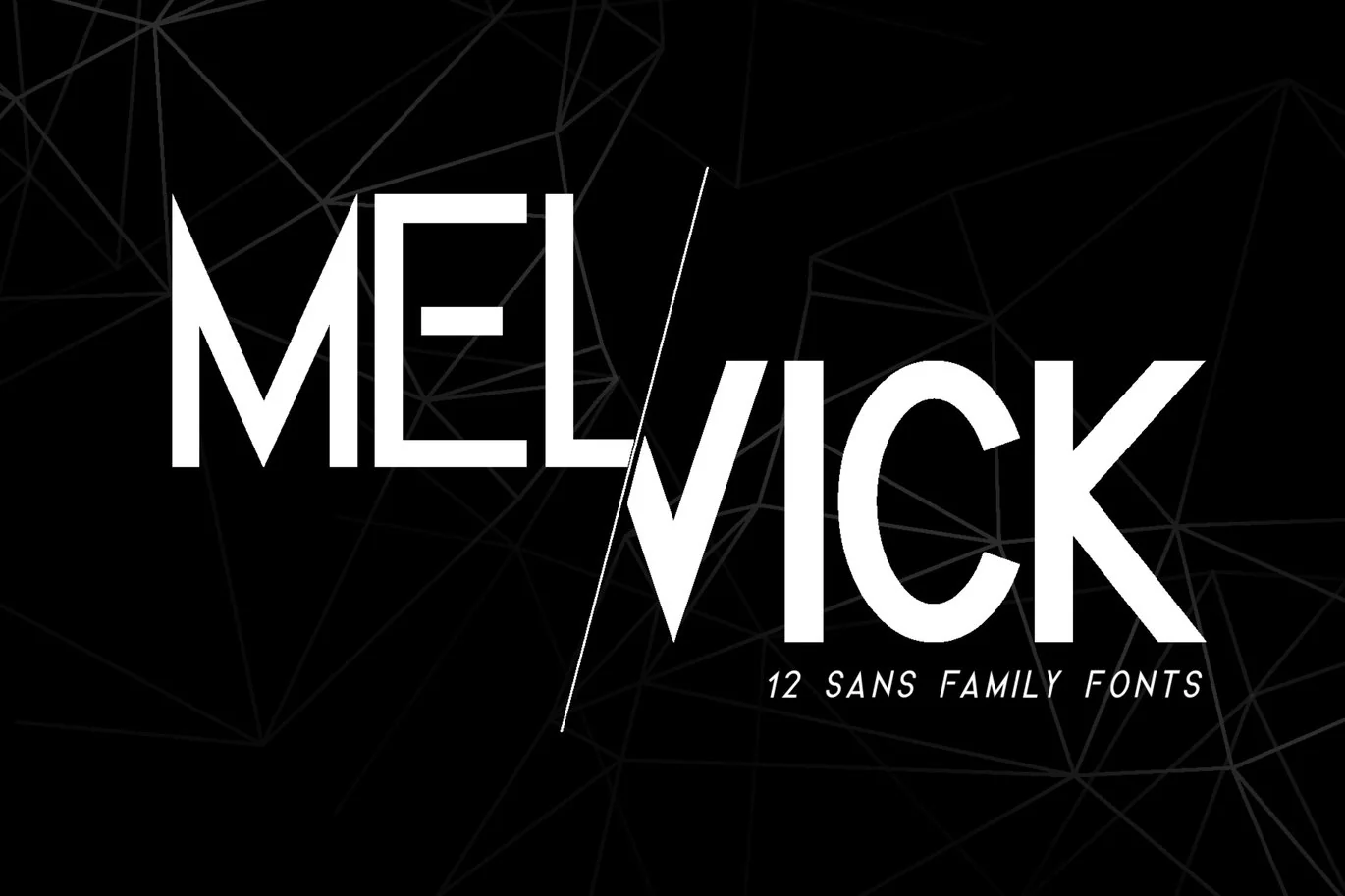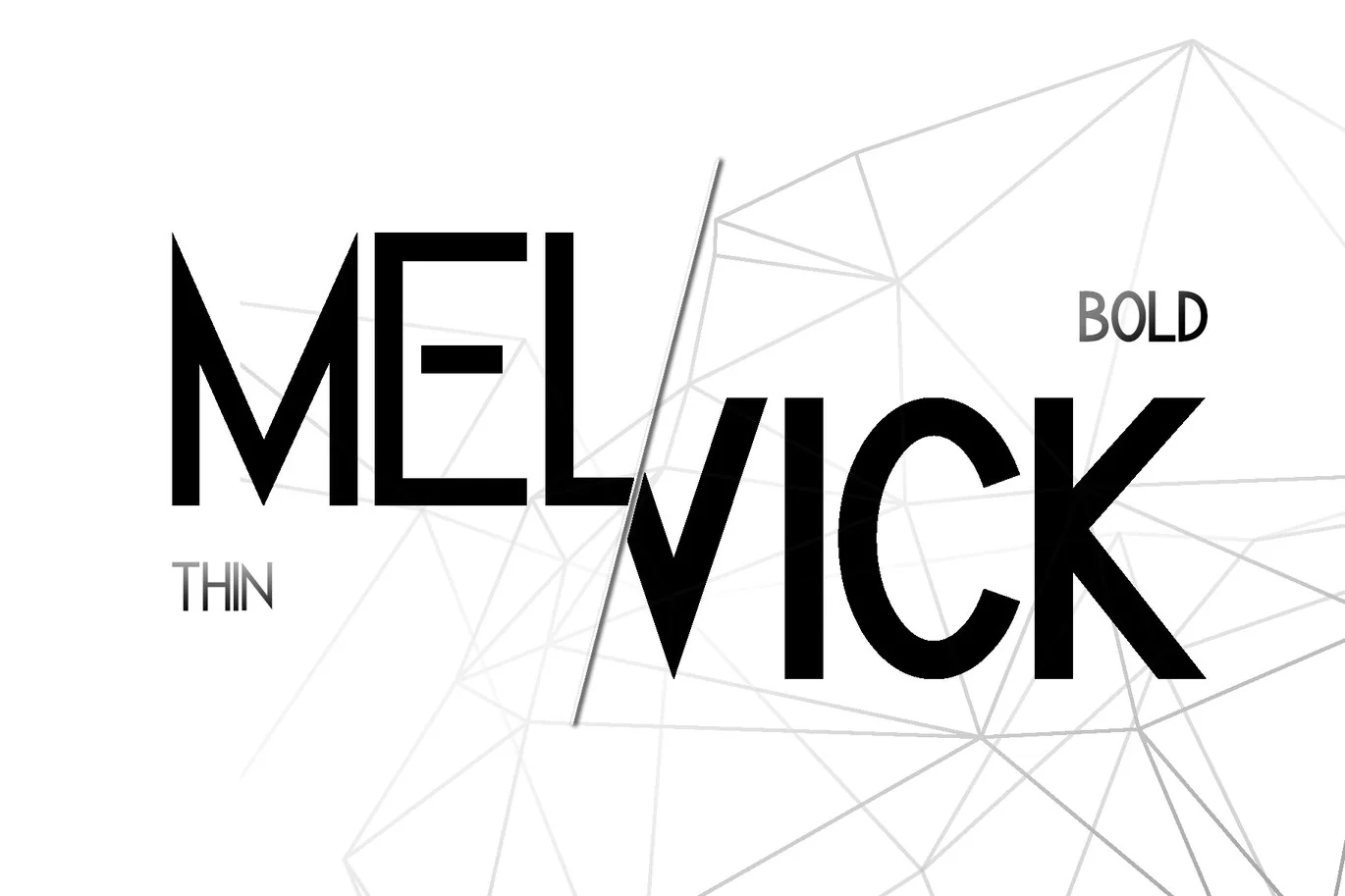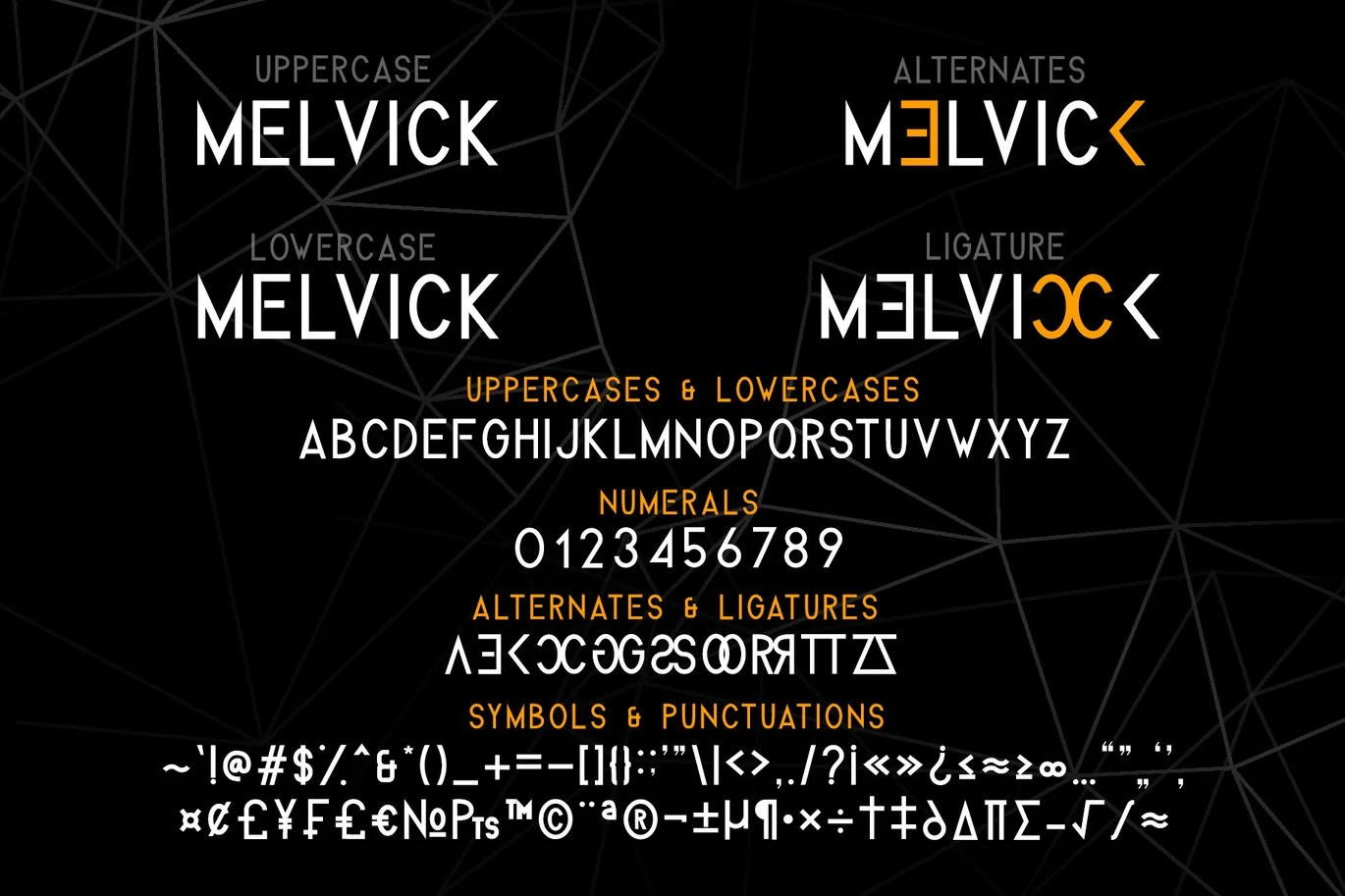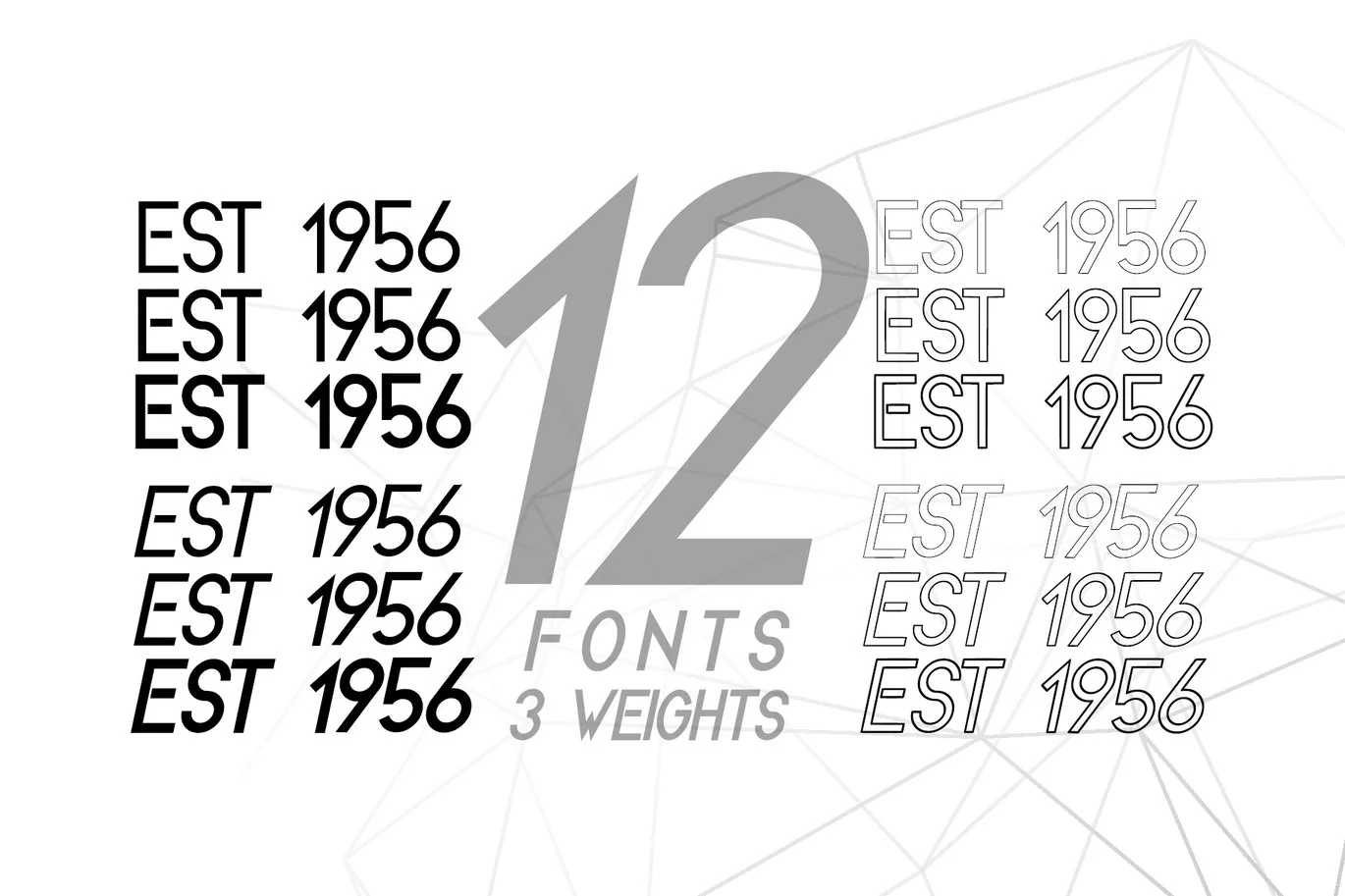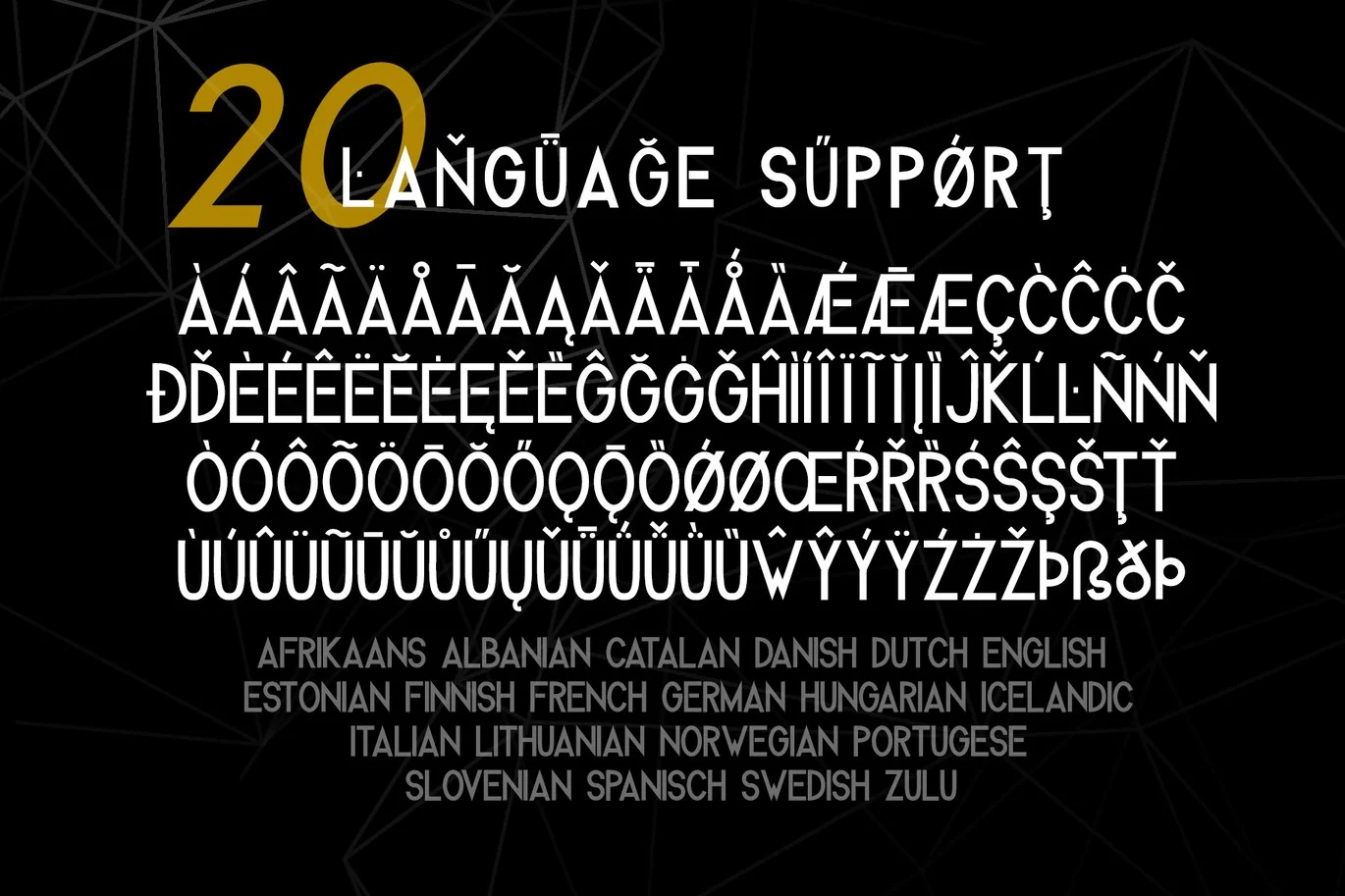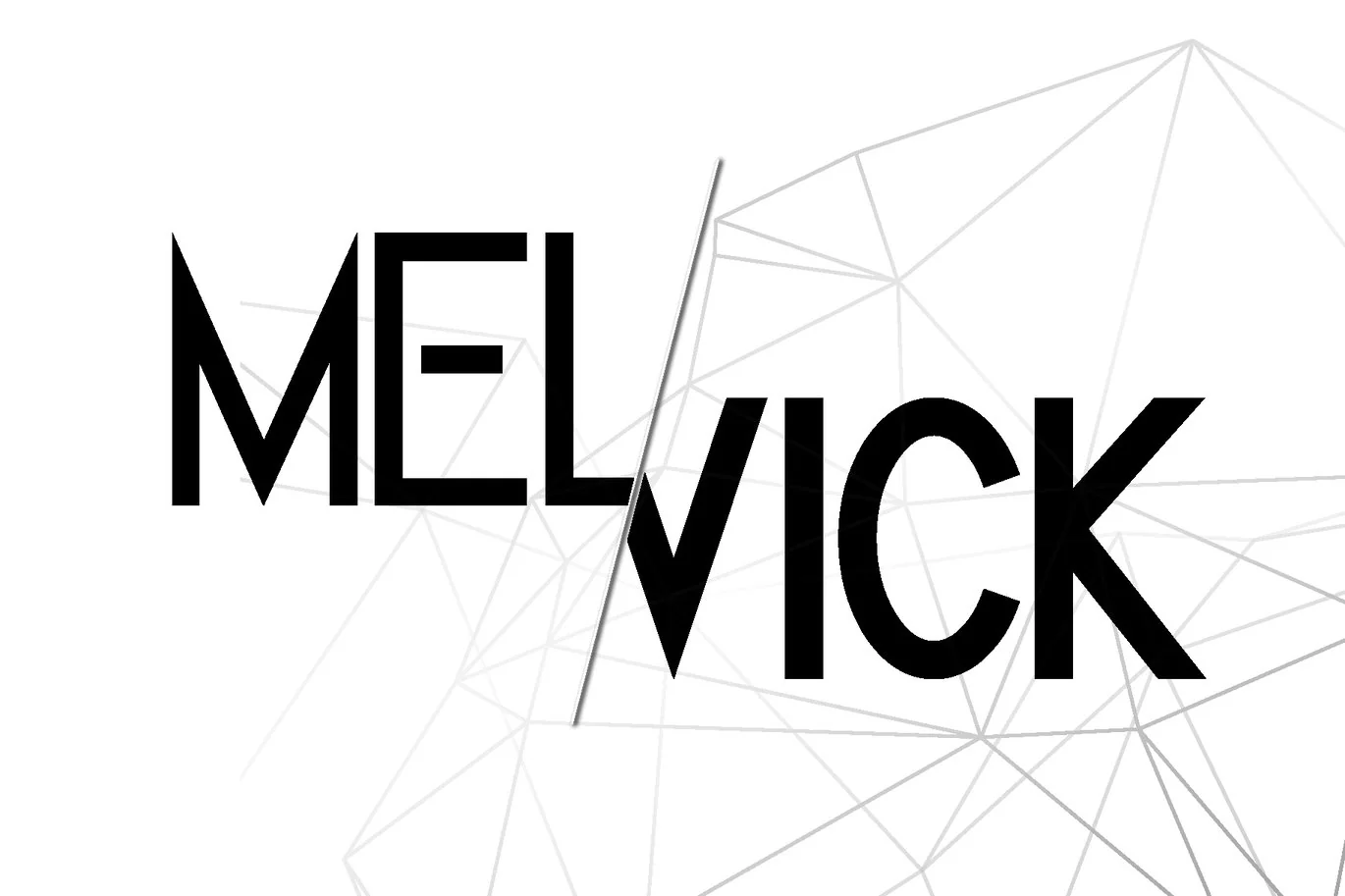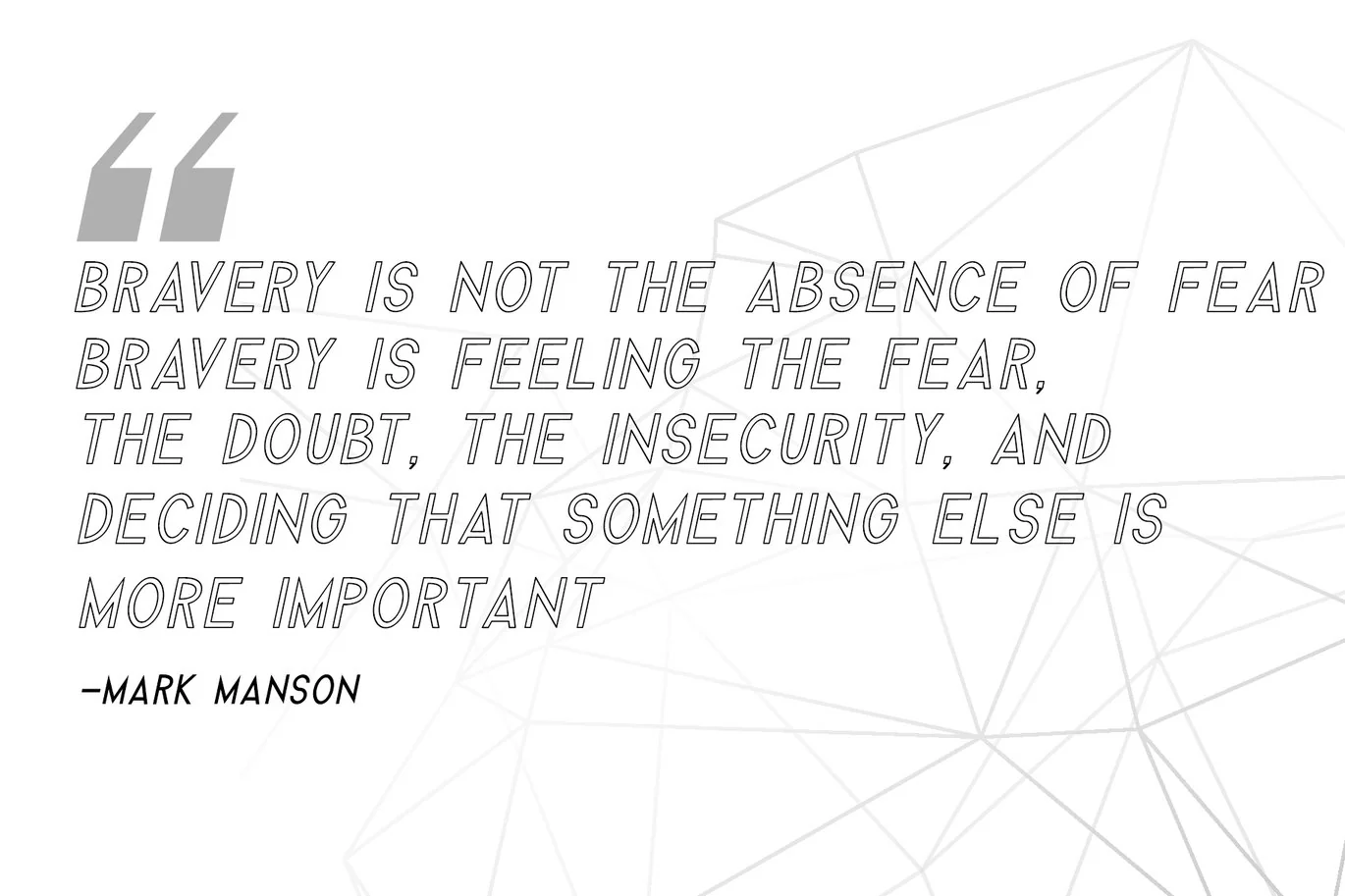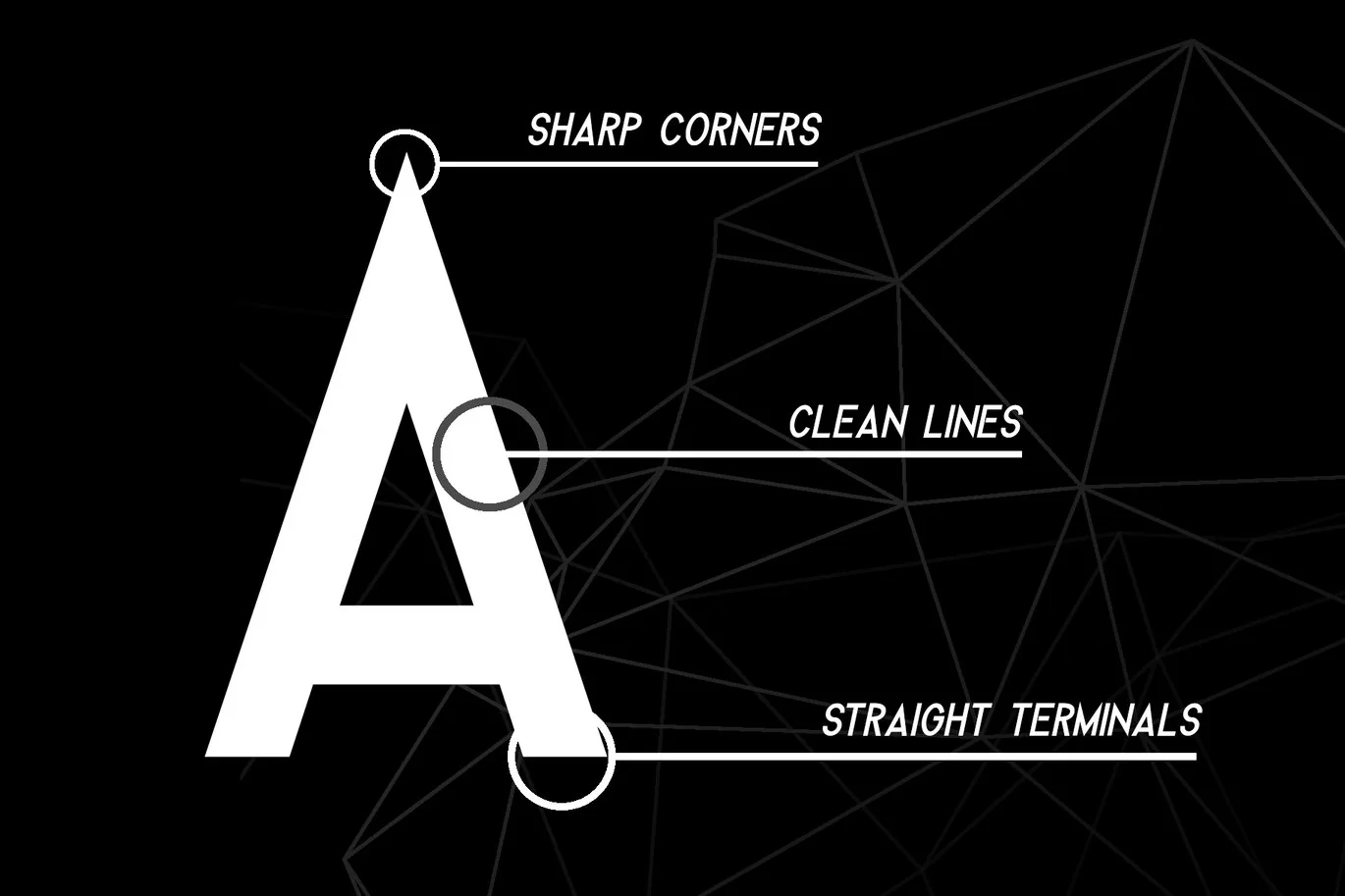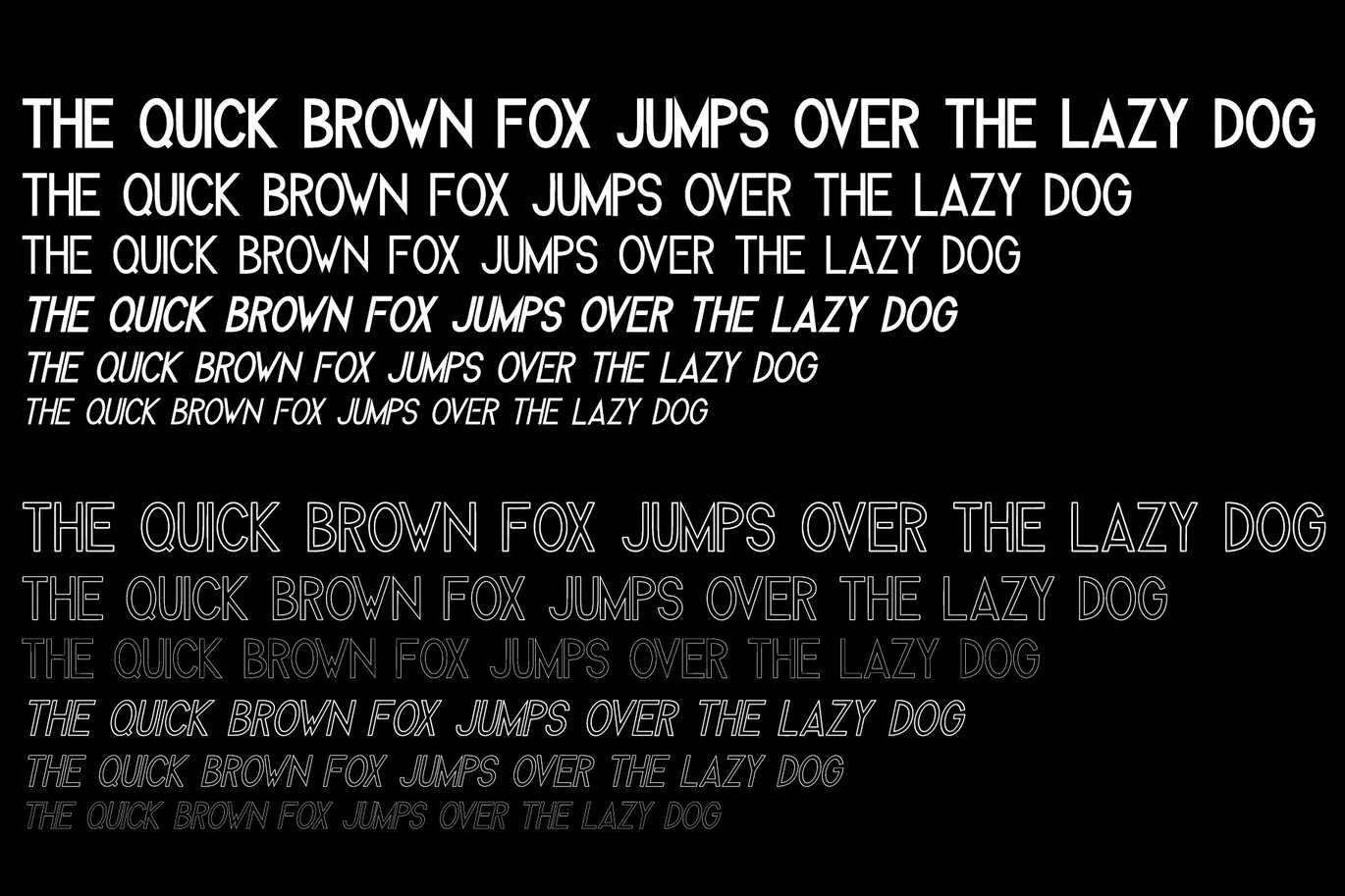
Melvick – Font Family
Introducing, MELVICK – 12 Sans Family Fonts
This is a great display font collection for you who need a simple,
clean and strong characters. Comes in 12 fonts, 3 weights, all in CAPS,
with solid and outline style.
Suitable for display, logo, branding, magazine, header, t-shirt,
printing, poster, advertisement, flyer and many more. Get paired along
with each other fonts or let it stand alone. All looks great!
Highlights :
The ALL IN CAPS characters, that contains UPPERCASES, numerals, symbols and punctuations.
12 Fonts in 3 Weights : Thin, Regular, Bold. All comes in Normal & Italic. Solid & Outline Style.
20 Languages Support